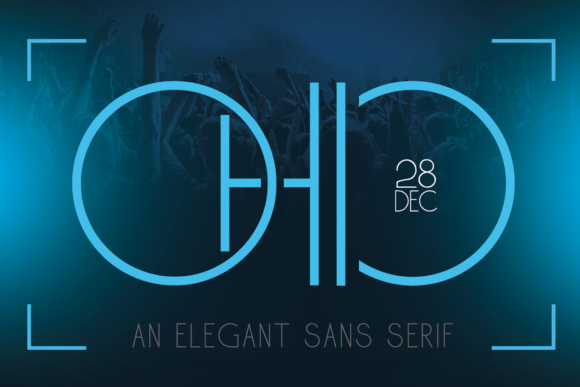
Ohio Font
**Ohio Font: A Futuristic Gateway to Typography Nirvana**
Immerse yourself in the captivating realm of Ohio Font, a groundbreaking sans serif creation by the visionary minds at 177Studio. This typographic masterpiece unveils a symphony of precision, elegance, and innovation, destined to elevate your creative endeavors to unprecedented heights.
**A Journey into the Future of Typography**
Ohio Font boldly transcends the boundaries of conventional fonts, embracing the allure of the future. Its crisp lines and geometric precision exude an aura of modernity, propelling your designs into the digital forefront. Each character, meticulously crafted with unwavering attention to detail, embodies the essence of technological advancement and aesthetic excellence.
**Unleash Your Creativity with Limitless Potential**
Ohio Font is not merely a collection of letters; it's an arsenal of creative possibilities. Whether you're a seasoned designer or an aspiring wordsmith, this font empowers you to express your imagination with unparalleled freedom. Its versatility knows no bounds, seamlessly adapting to a myriad of projects, from sleek logos and captivating headlines to mesmerizing posters and eye-catching social media graphics.
**Elevate Your Designs to New Heights**
With Ohio Font at your fingertips, prepare to witness a transformative journey for your designs. Its futuristic charm will invigorate your creations, adding a touch of sophistication and innovation that captivates the senses. Let your imagination soar as you explore the endless possibilities, knowing that Ohio Font will faithfully accompany you every step of the way.
**Experience the Power of Precision**
Ohio Font epitomizes precision, ensuring that every letterform is rendered with unwavering clarity and sharpness. This meticulous attention to detail guarantees that your designs will exude professionalism and finesse, leaving a lasting impression on your audience.
**Innovate with Confidence**
Ohio Font is your passport to the realm of typographic innovation. Its futuristic aesthetic empowers you to push creative boundaries, experiment with novel ideas, and redefine the possibilities of visual communication. Embrace the spirit of exploration and let Ohio Font guide you towards uncharted territories of design.
**Discover the Ohio Font Advantage**
Join the ranks of discerning designers who have embraced Ohio Font as their secret weapon for typographic brilliance. Its futuristic charm, limitless versatility, and unwavering precision combine to create a font that surpasses expectations and sets a new standard for excellence.
**Ohio Font: The Key to Unlocking Typographic Excellence**
Ohio Font stands as a testament to the transformative power of typography. Its innovative spirit and boundless potential will ignite your creativity, elevating your designs to new heights of sophistication and innovation. Embrace the future of typography and download Ohio Font today, unlocking a world of boundless possibilities for your creative endeavors.